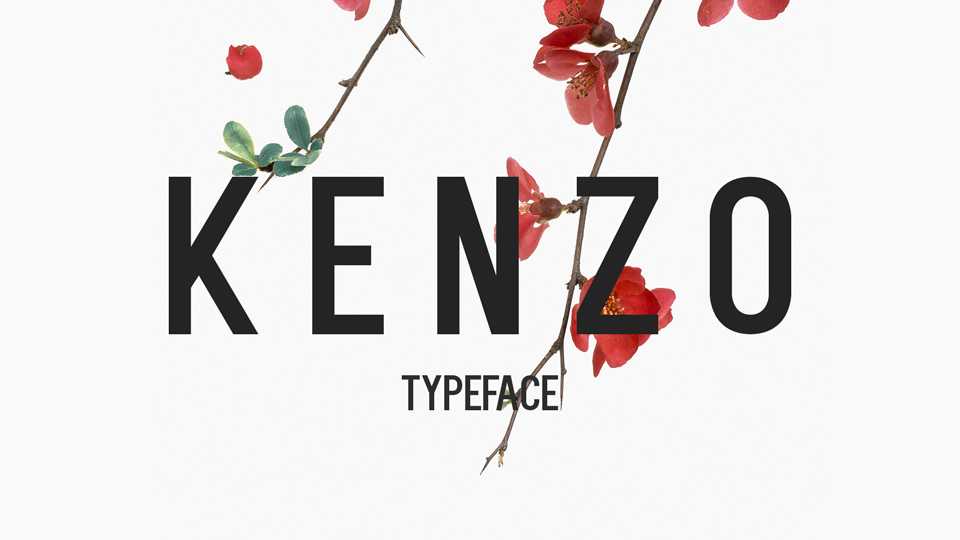
Download Kenzo font, a condensed display typeface in Regular and Italic styles. Kenzo works best for headlines, posters, banners, social media and other display purposes.
Designer: Frank Hemmekam